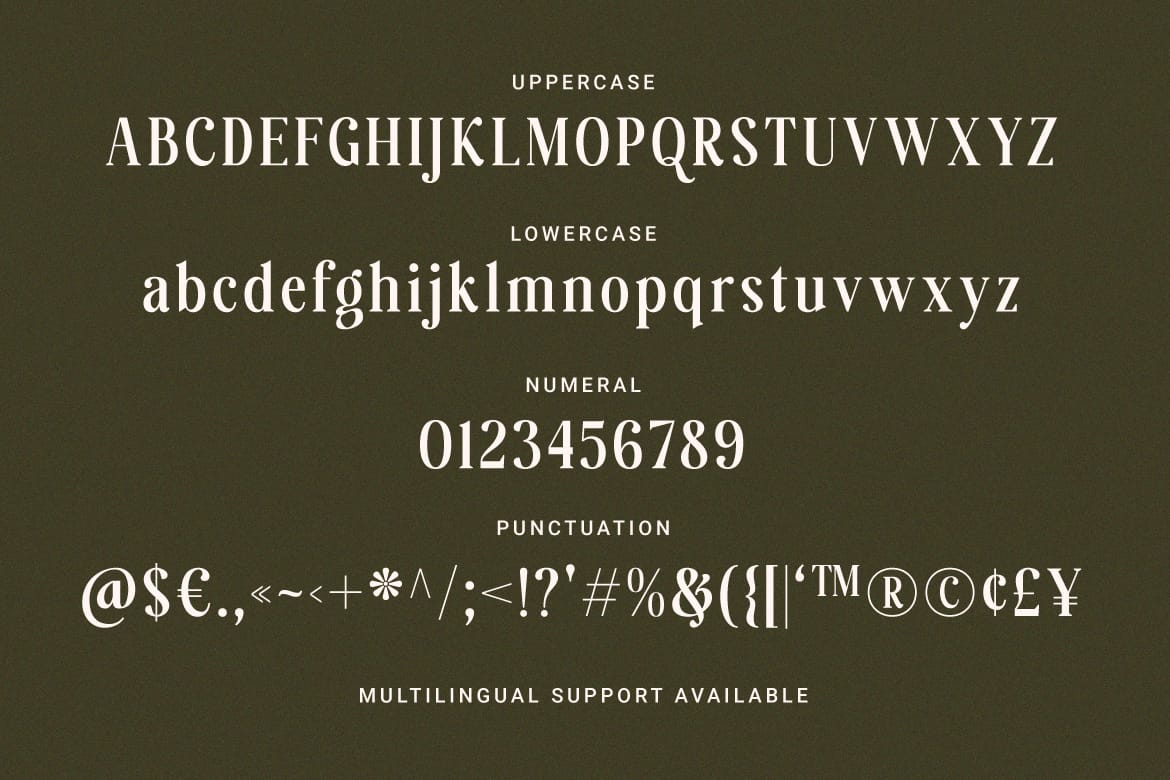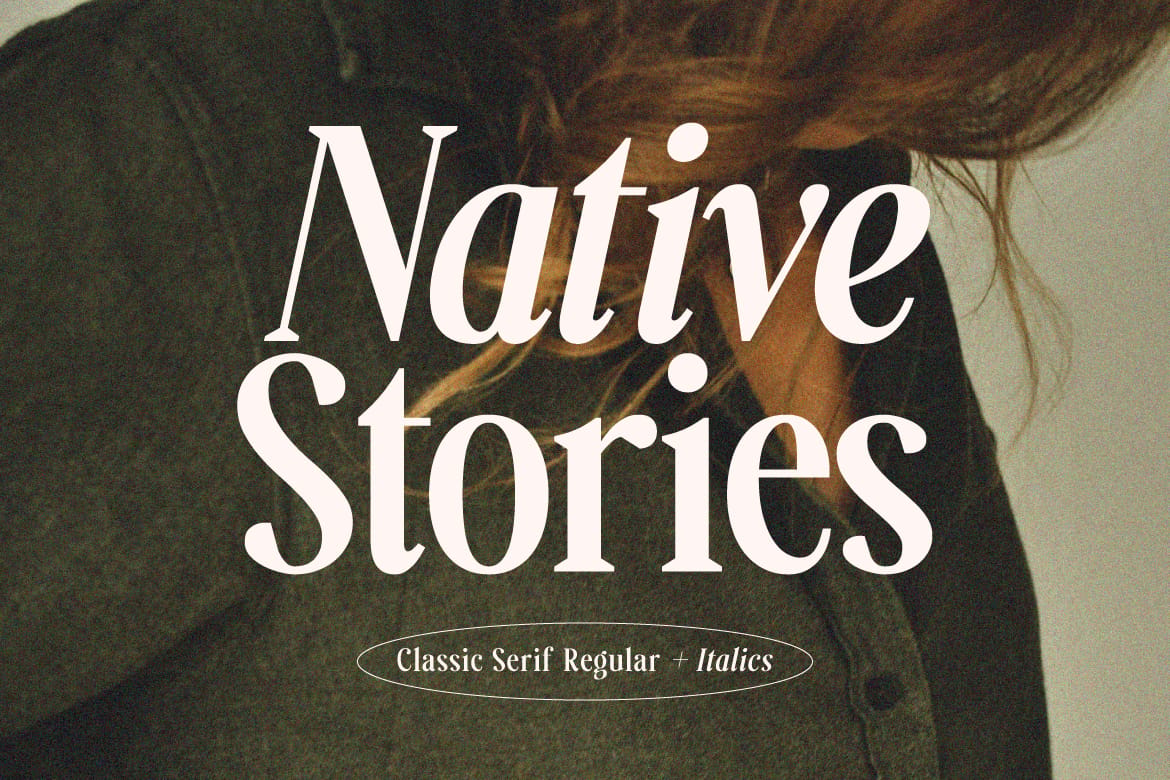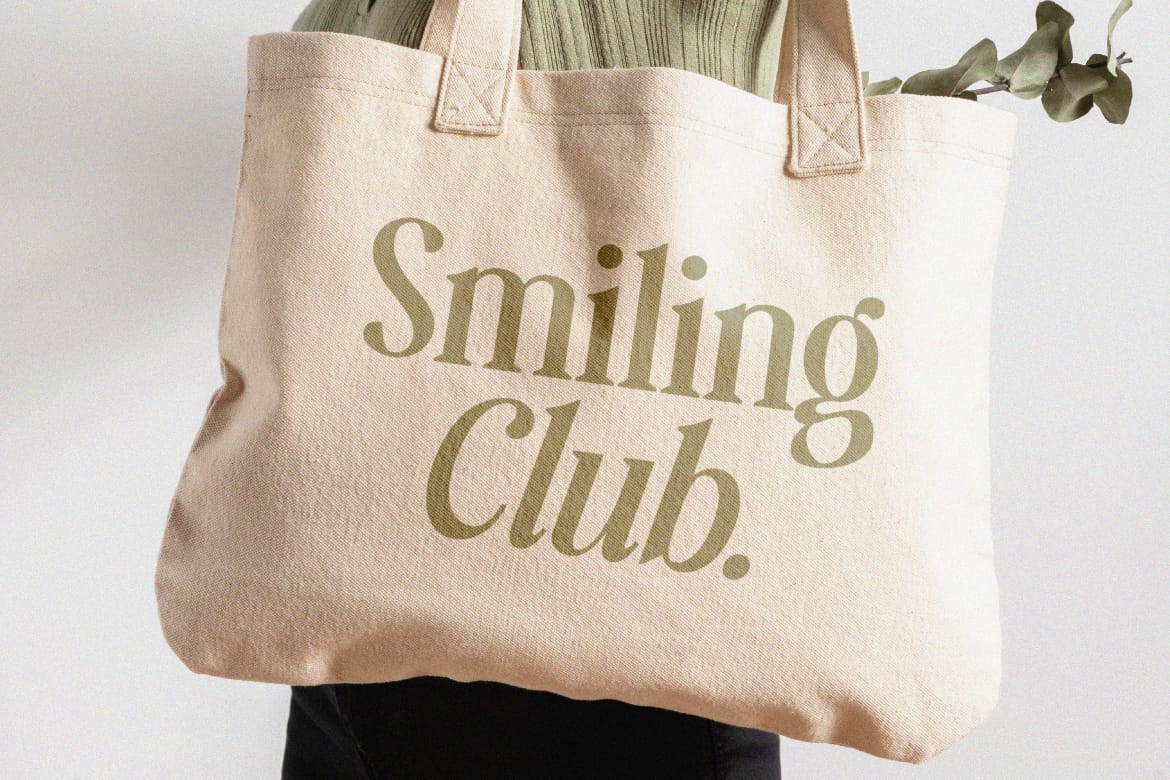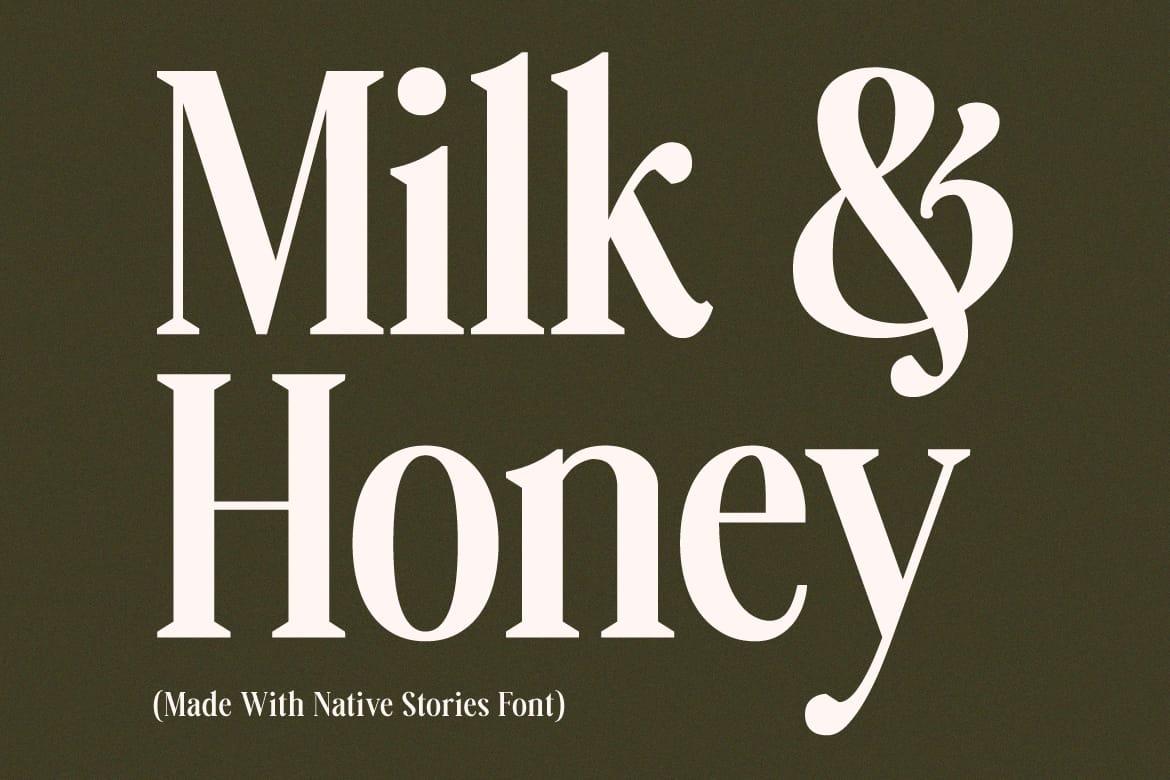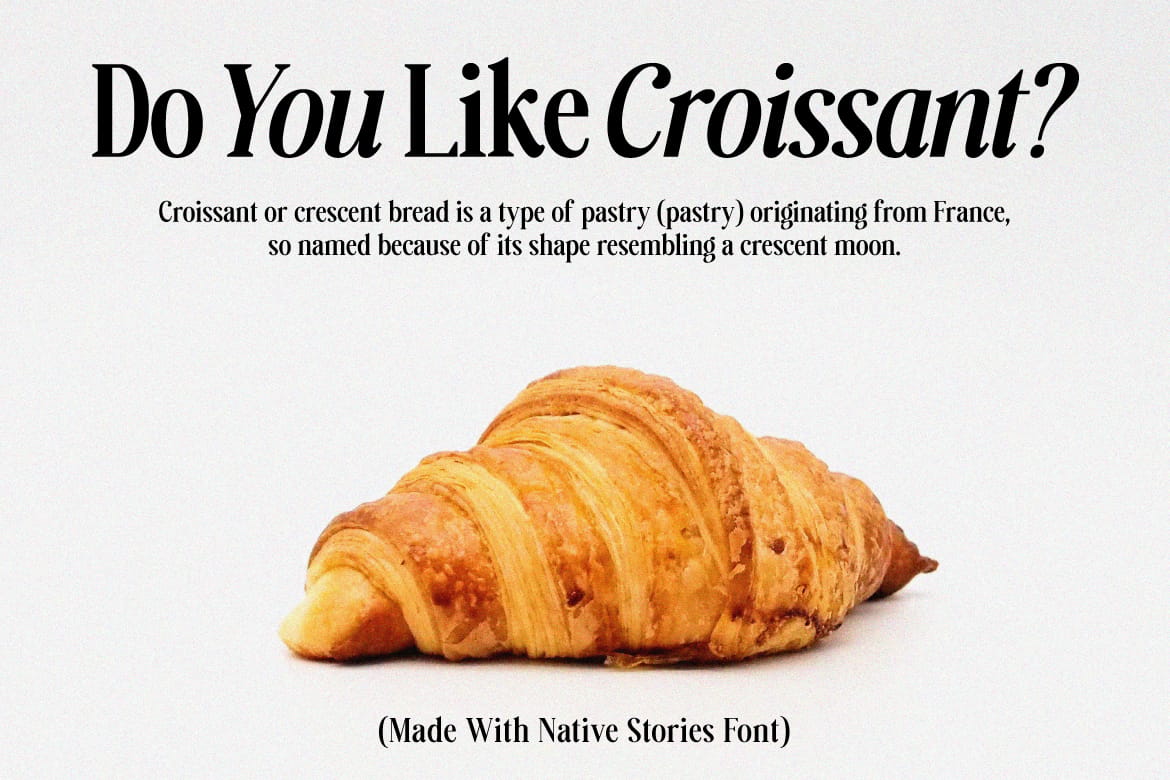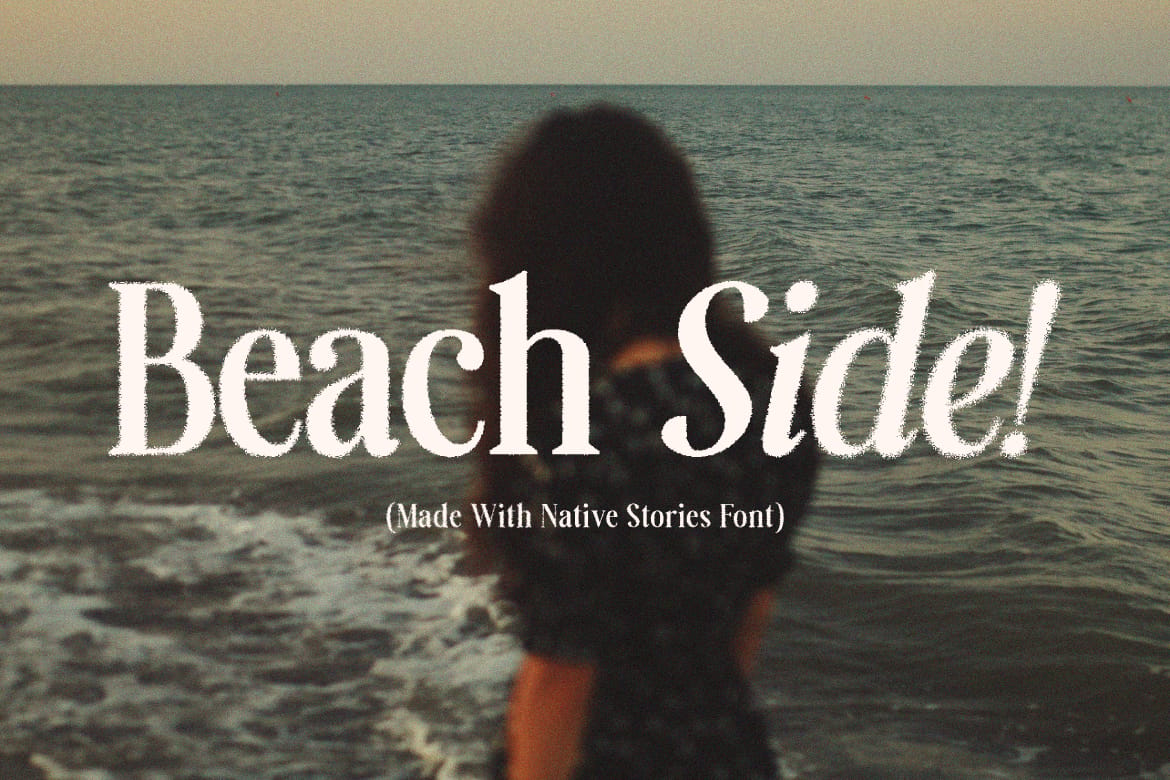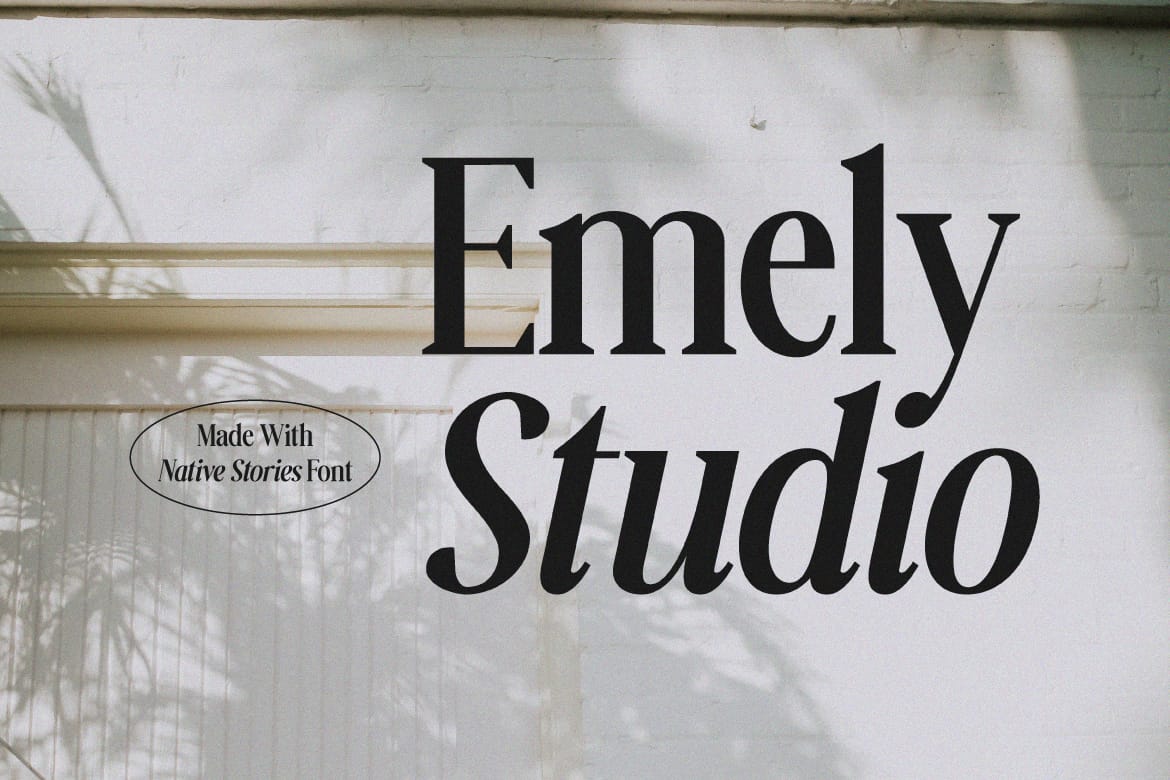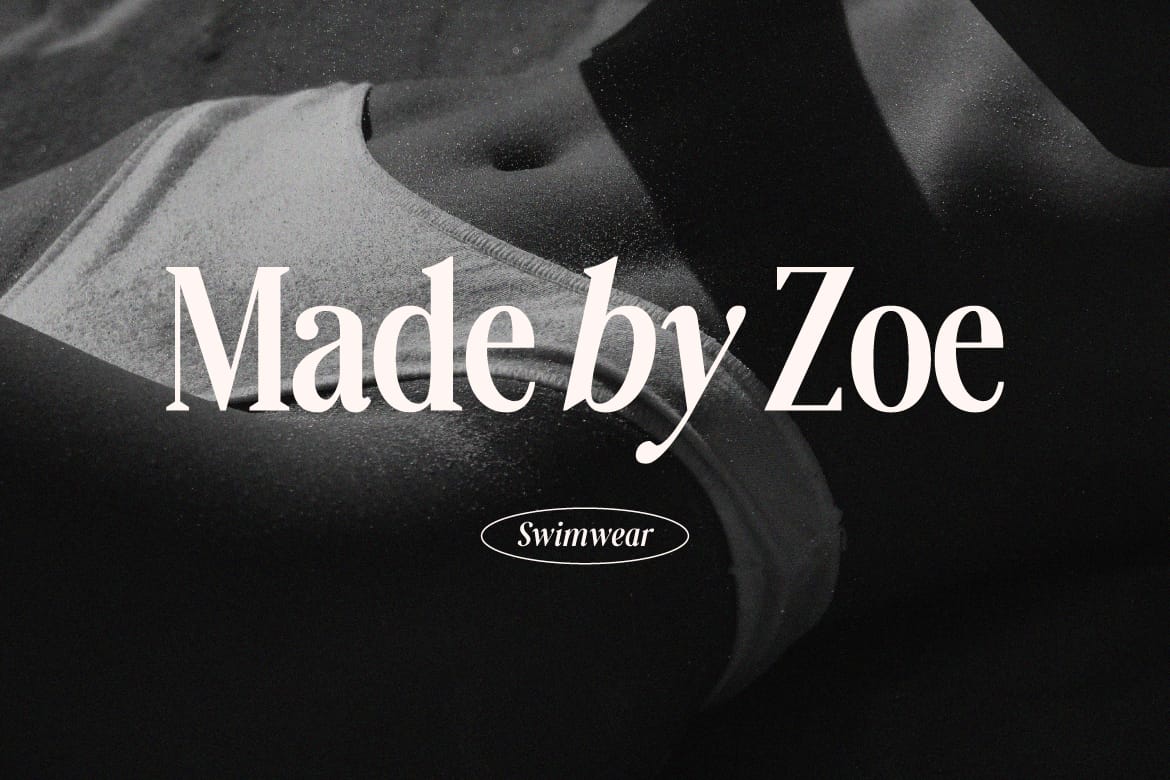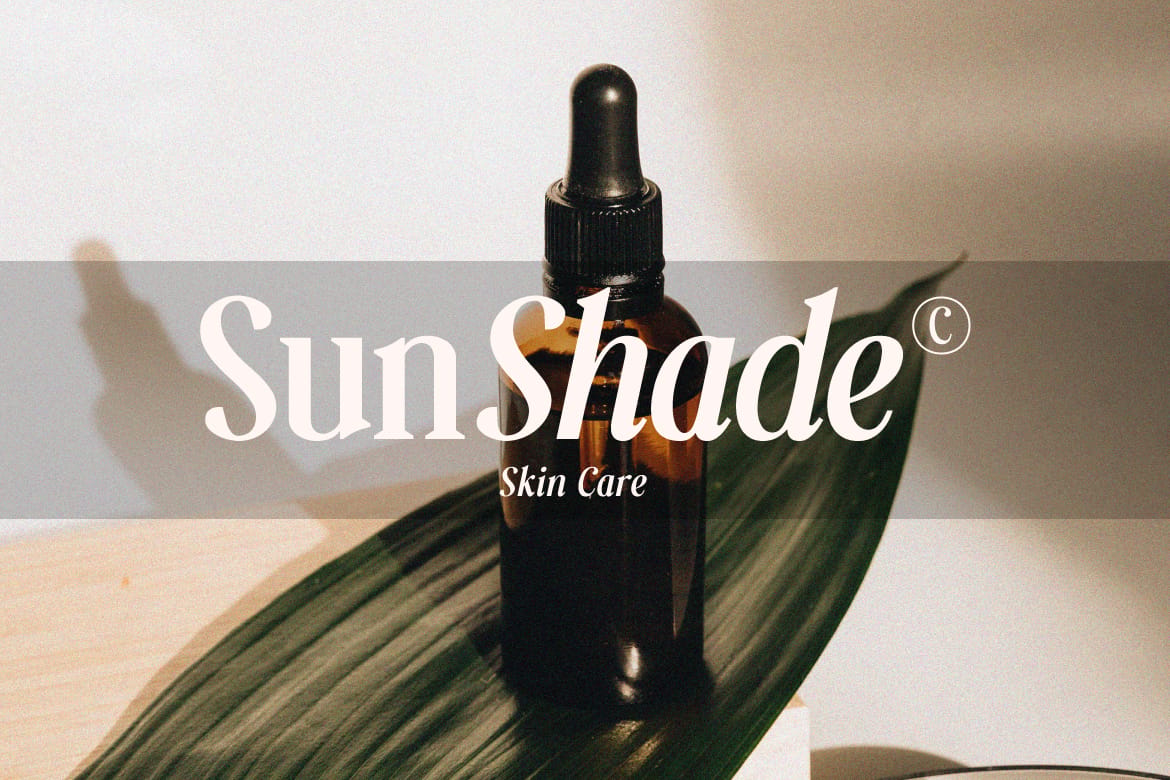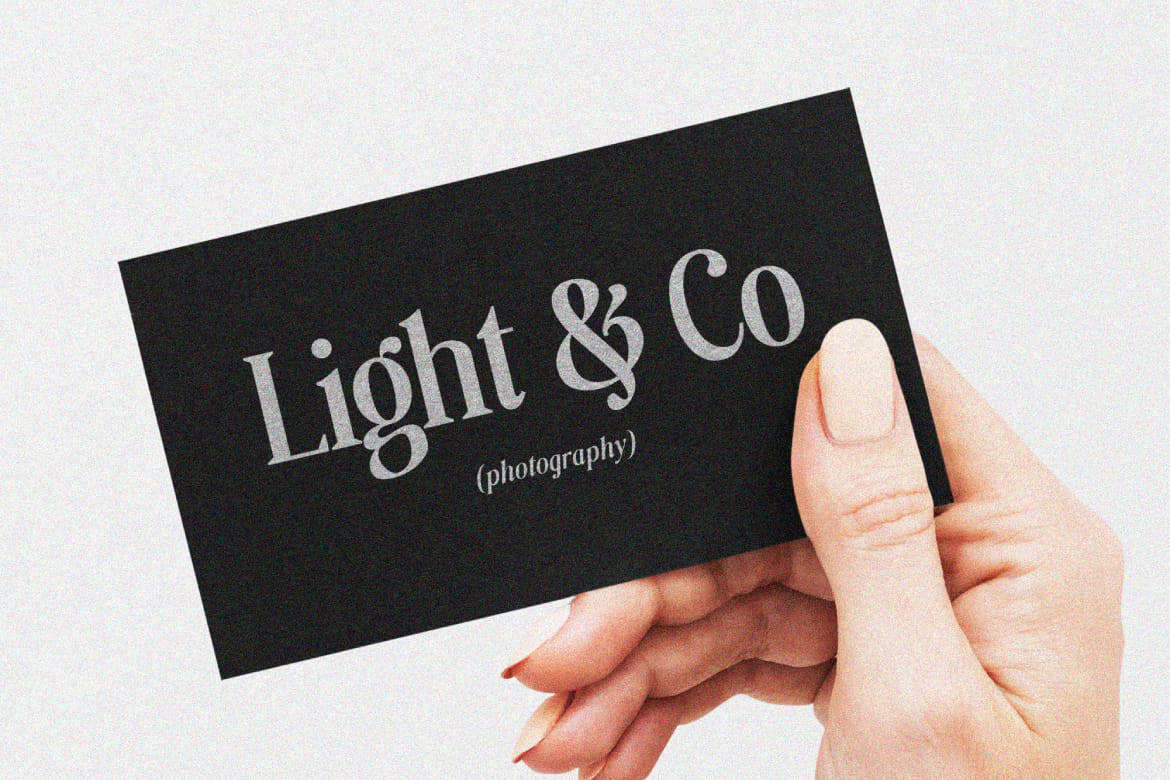
Native Stories - Classic Serif Font.
A serif font with a stylish, classic feel is ready to work with your design projects. There are two styles, namely Regular and Italic. Perfect for applying to poster designs, branding, magazines, merchandise, logos and more.
Features: Uppercase, Lowercase, Numeral, Punctuation & Multilingual.
Multilingual supported: Afrikaans, Albanian, Basque, Catalan, Danish, Dutch, English, Estonian, Filipino, Finnish, French, German, Indonesian, Irish, Italian, Norwegian, Portuguese, Spanish, Swedish, and many more.
- Regular and Italic styles
- Multilingual support included